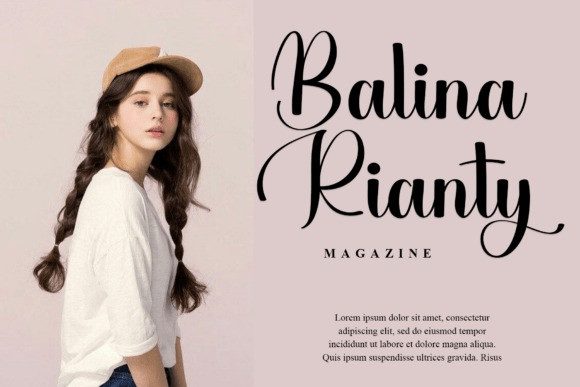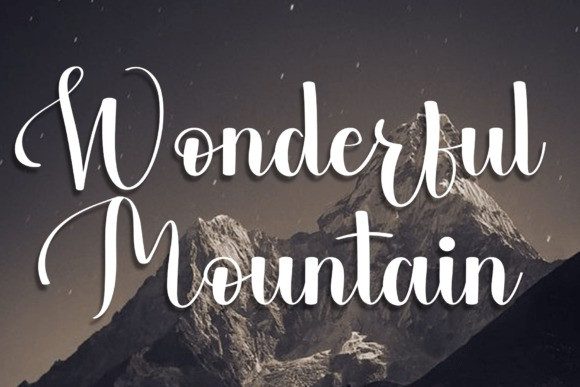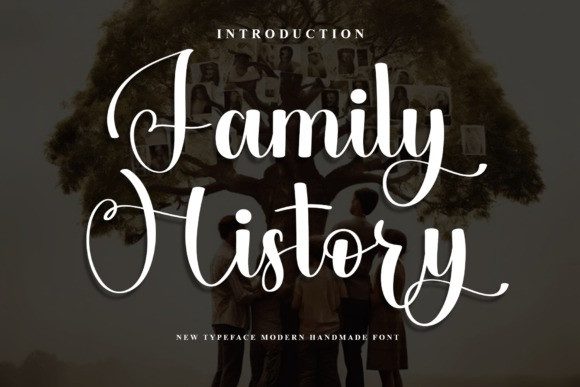
Family History Script Font
Family History Script Font is a casual and creative font that exudes warmth and friendliness. Its round, playful strokes create a relaxed and approachable feel, perfect for personal projects, invitations, and social media graphics. The font’s charming, hand-drawn aesthetic adds a fun and unique touch to any design.